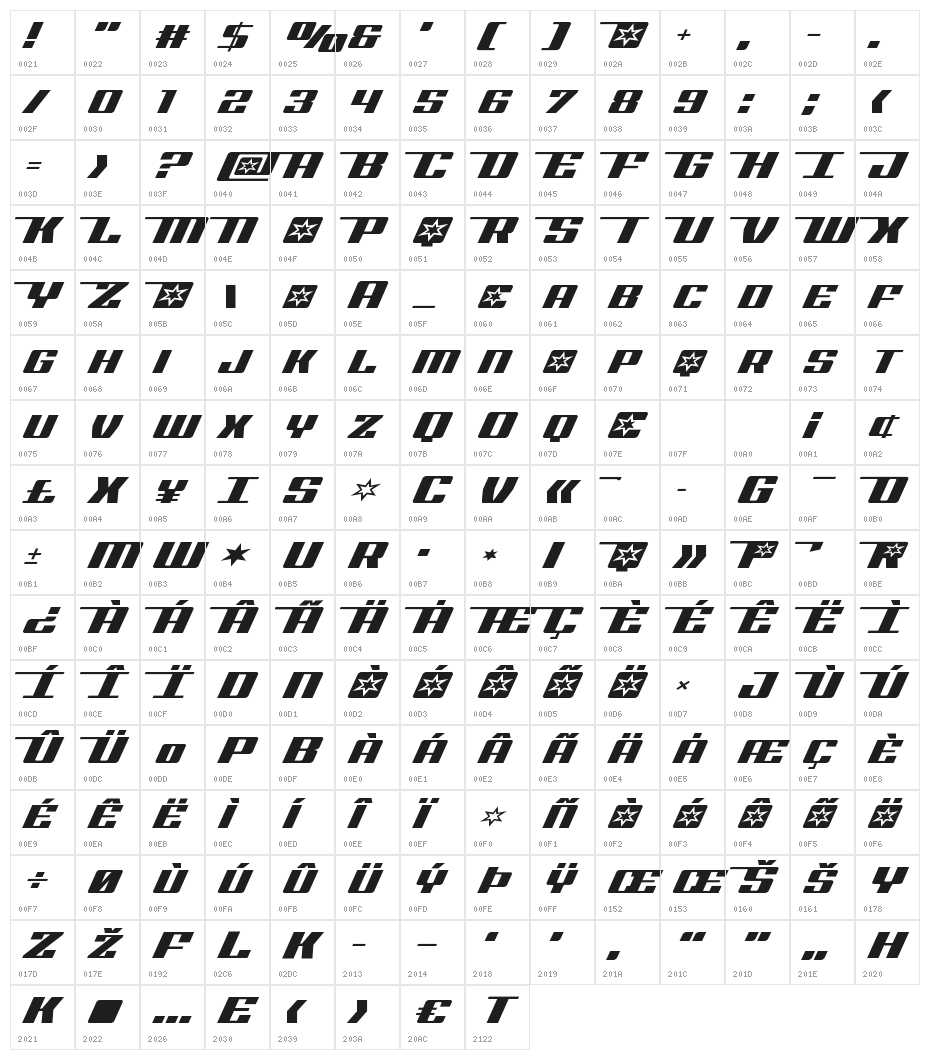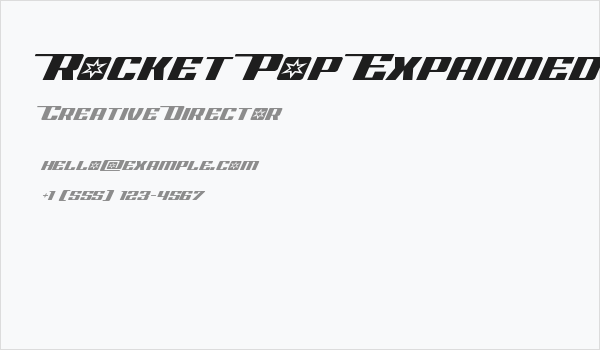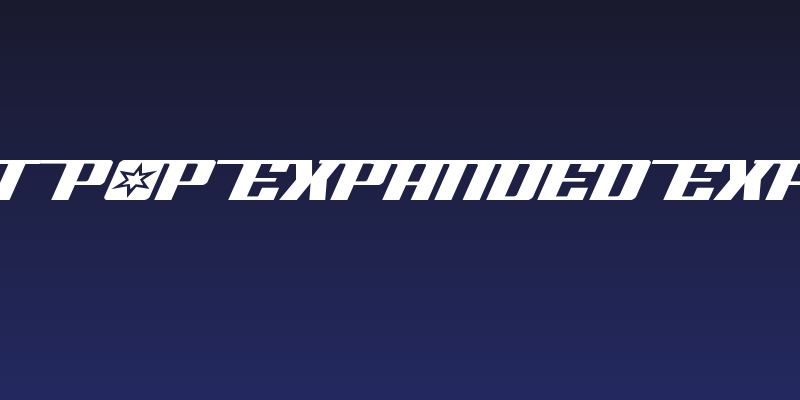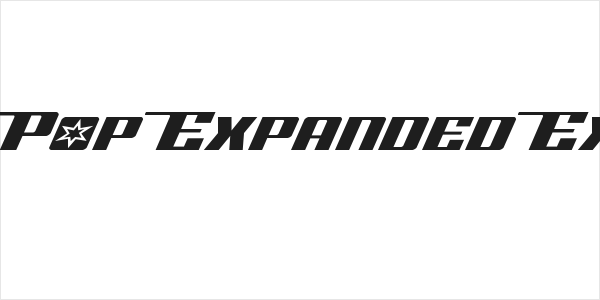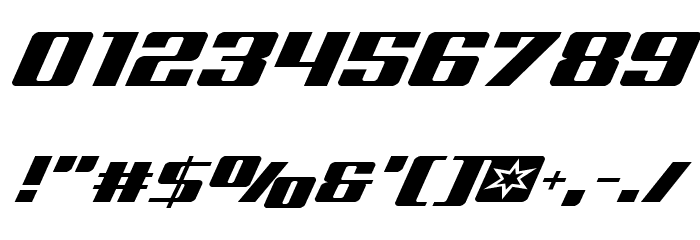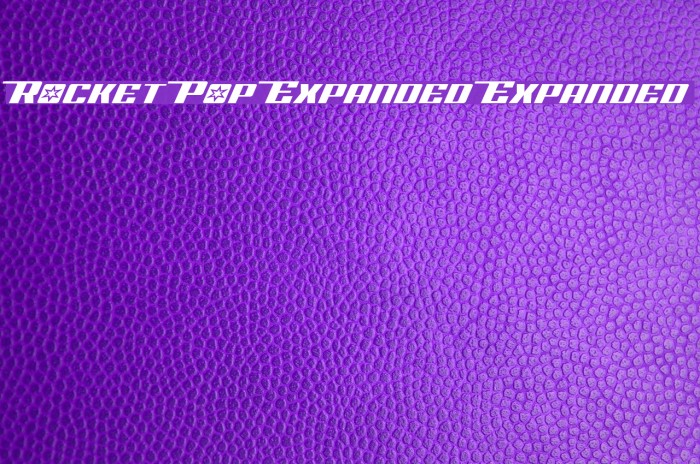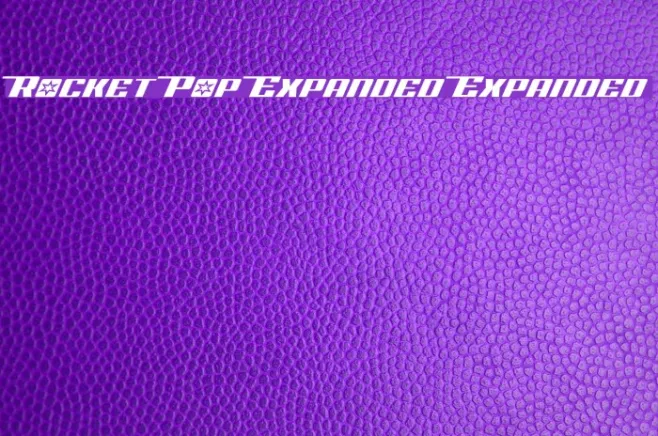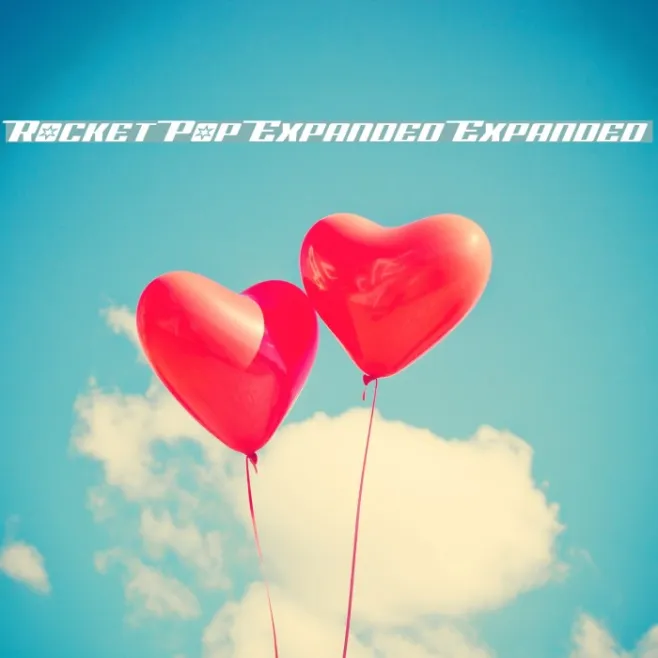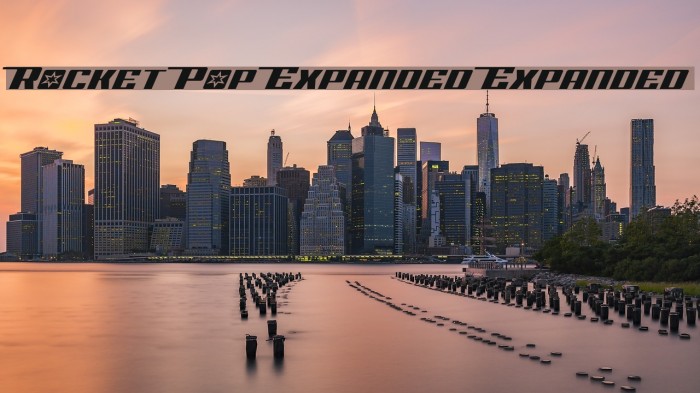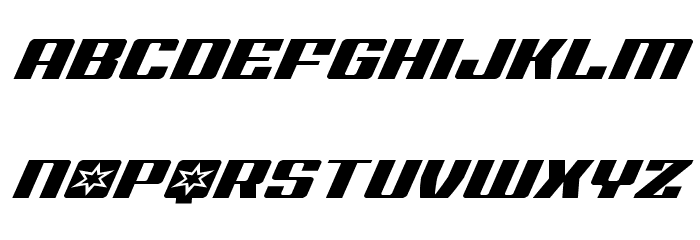
Rocket Pop Expanded Font
Rocket Pop Expanded Description
This font features a bold and dynamic style with a futuristic flair. The characters are designed with sharp angles and a distinct slant, giving them a sense of motion and energy. The uppercase letters are particularly striking, with some characters incorporating star-like embellishments that add a unique touch. The numbers and special characters maintain the bold and angular design, ensuring consistency throughout the typeface. This font is ideal for projects that require a strong and impactful visual presence.
| Proposed Projects | Perfect for sci-fi themed posters, video game titles, and branding for tech companies. |